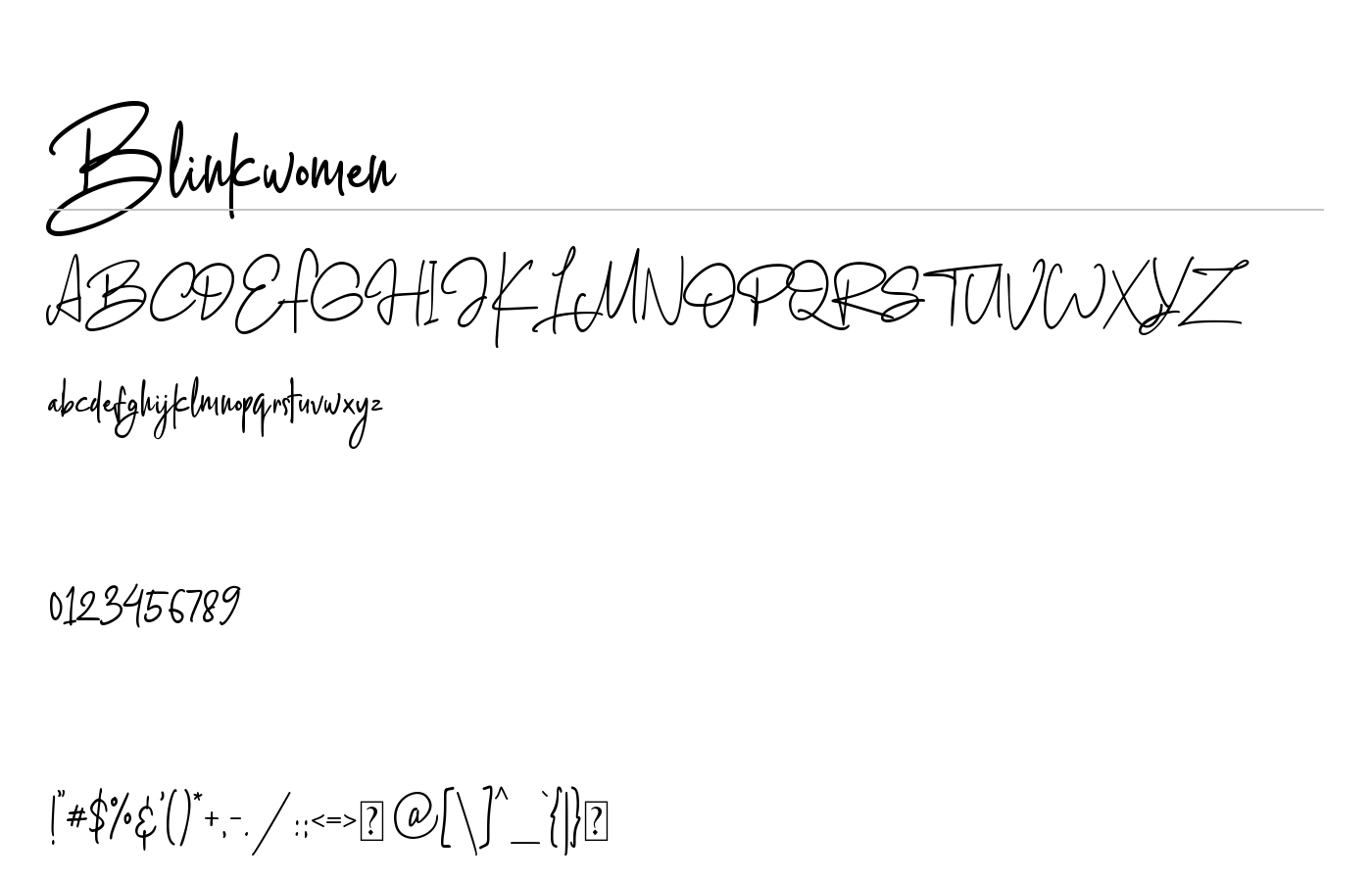
Blinkwomen is an elegant handwritten script font with a casual, airy feel characterized by tall, slender letterforms and fluid, loosely connected strokes. Its light weight and playful style make it perfect for adding a personal, artistic touch to branding, invitations, and creative projects where a modern, feminine vibe is desired. This font works beautifully in headlines, logos, and decorative text where a distinctive hand-drawn look is needed.
Blinkwomen Font
About Blinkwomen Font
| Font family | Blinkwomen Font |
| Designer | Muhammad Sirojuddin |